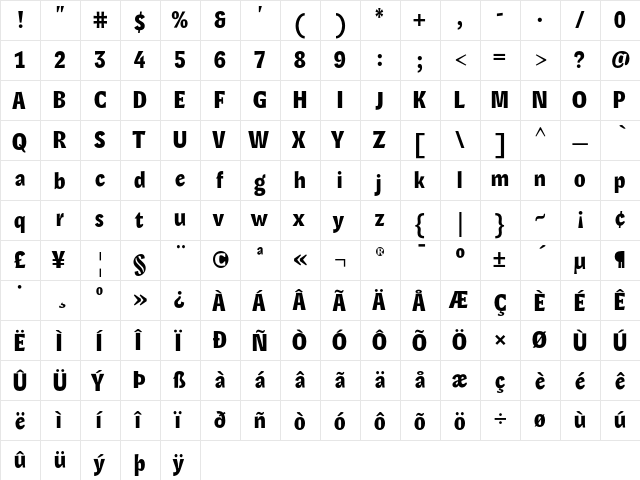
Lexon Headline Regular
| Designer | Frantisek Storm |
Design Context for Lexon Headline Typeface
Lexon Headline takes a measured approach to typography — its balanced proportions and neutral character make it a reliable workhorse for both digital and print work.